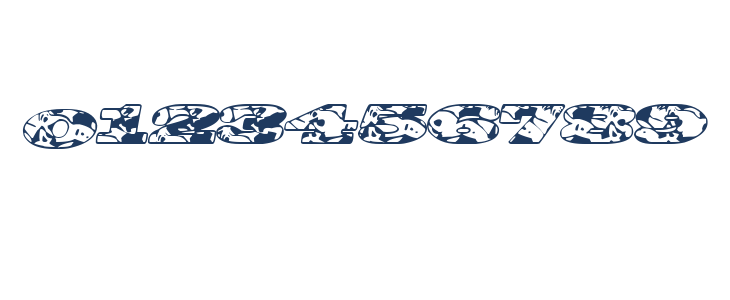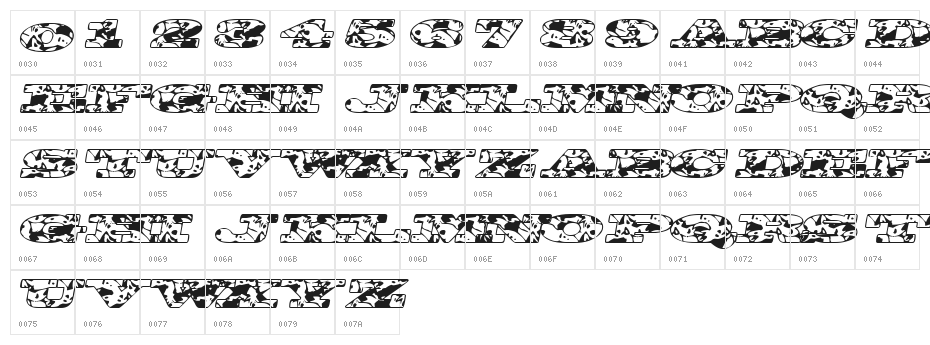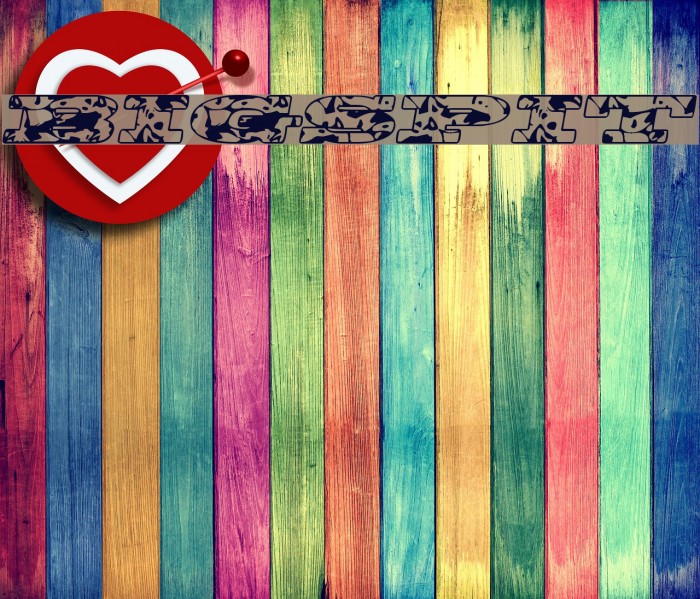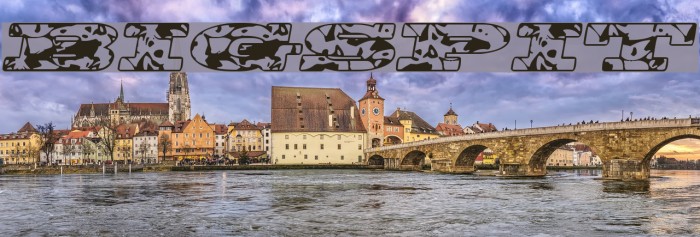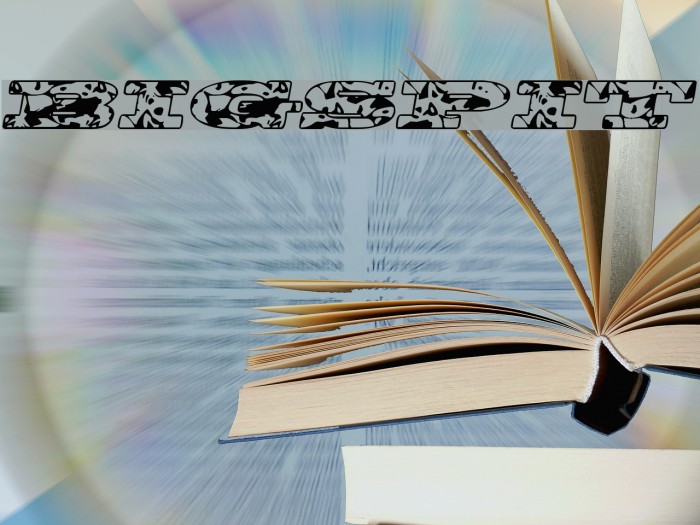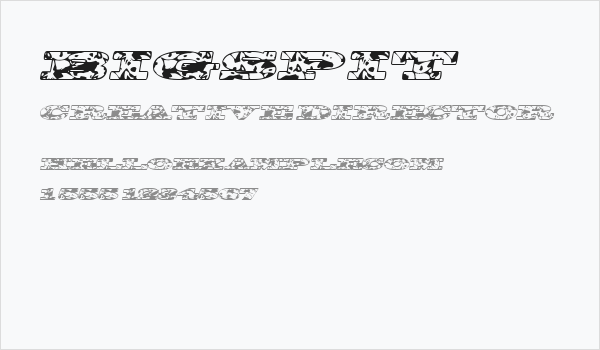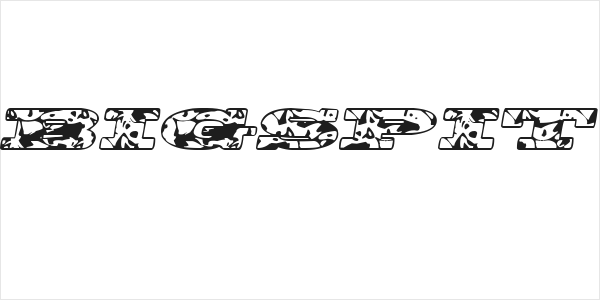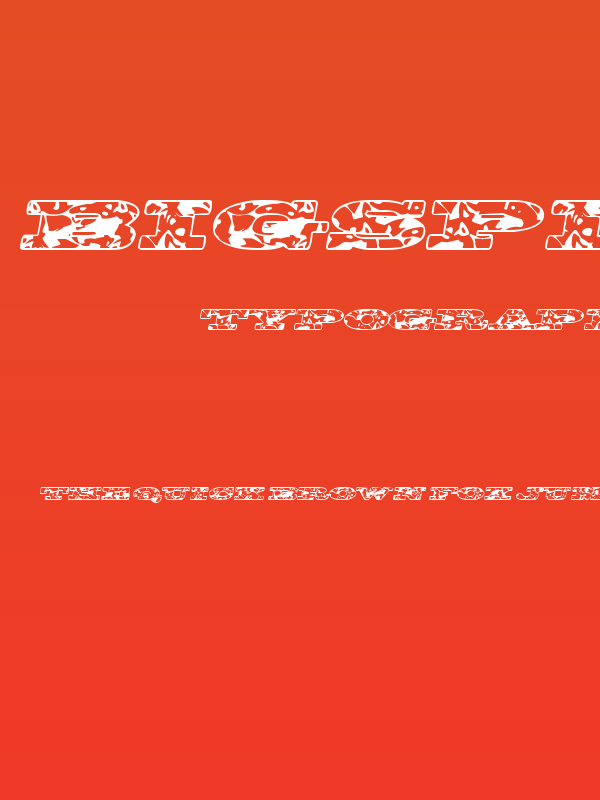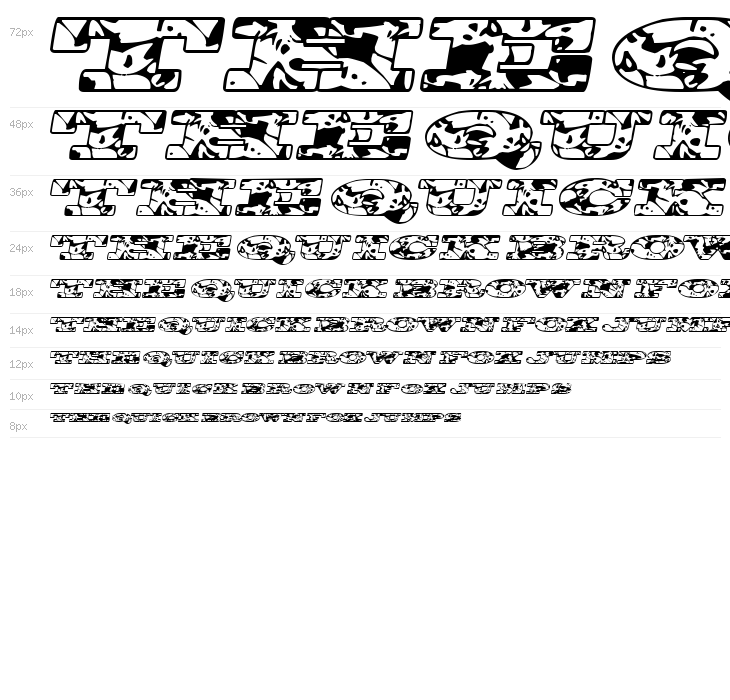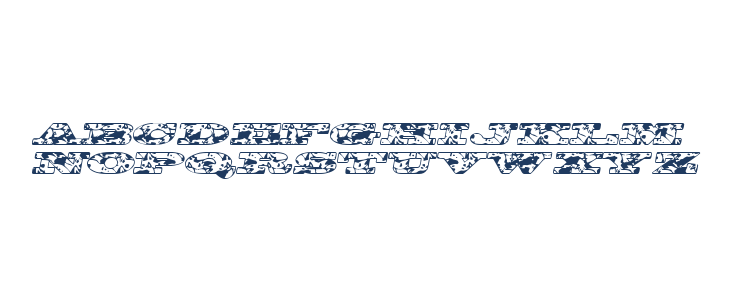
BigSpit Font
BigSpit Description
This font features a bold and playful design with a unique pattern filling each character. The letters are uppercase with a strong presence, making them ideal for attention-grabbing headlines or creative projects. The pattern within the letters adds a decorative touch, reminiscent of abstract art or graffiti, giving it a modern and edgy feel. The numbers and special characters share the same style, ensuring consistency across different uses. This font is perfect for projects that require a fun and dynamic visual impact.
| Proposed Projects | Ideal for posters, album covers, branding for creative industries, and any project needing a bold, artistic touch. |